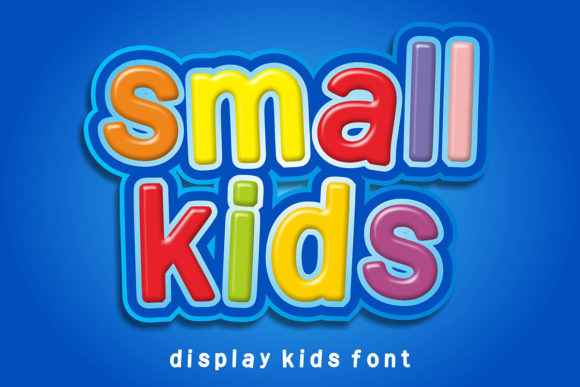
Prepare yourself for Small Kids Font, the enchanting display font that effortlessly captivates hearts with its amiable charm. Crafted with impeccable detail by Infinity Art Studio, Small Kids possesses an amicable and inviting aura that instantly draws eyes and hearts alike. Step into a realm of design possibilities where boundless creativity thrives, as this remarkable font takes center stage.
Unleash the power of Small Kids, a font specially designed to radiate warmth and approachability. Its curved edges and playful structure create an inviting atmosphere, making it an ideal choice for projects that seek to establish a connection with their audience. Whether you're a seasoned designer or just starting out, Small Kids will effortlessly elevate your work, adding a touch of magic to every design.
Explore the endless possibilities of Small Kids, a font that seamlessly adapts to a multitude of creative endeavors. From eye-catching logos that leave a lasting impression to vibrant posters that demand attention, Small Kids is the perfect companion for crafting designs that shine. Its versatility knows no bounds, as it effortlessly enhances websites, presentations, and social media graphics, adding a touch of charm that sets your work apart.
Immerse yourself in the world of Small Kids, where imagination meets reality. Its friendly and inviting nature makes it the ideal choice for projects targeting children or those seeking a playful and approachable aesthetic. Create enchanting invitations, heartfelt greeting cards, and delightful children's books that capture the essence of joy and wonder. Small Kids has the power to transform your designs into magical adventures that captivate audiences of all ages.
Why settle for ordinary when you can embrace the extraordinary? Small Kids is more than just a font; it's an experience that transports you to a world of boundless creativity. Its charming nature has the power to transform your designs into works of art, leaving an indelible mark on the hearts and minds of those who encounter them. Unleash the magic of Small Kids today and embark on a creative journey like never before.